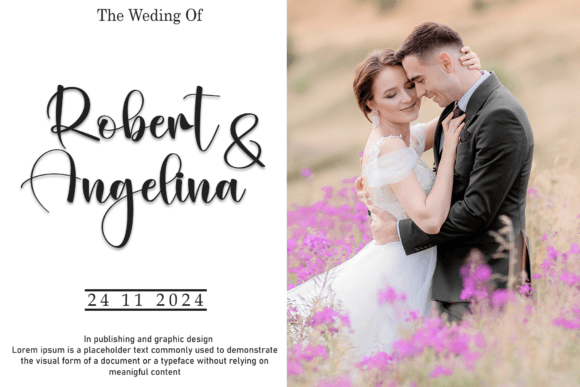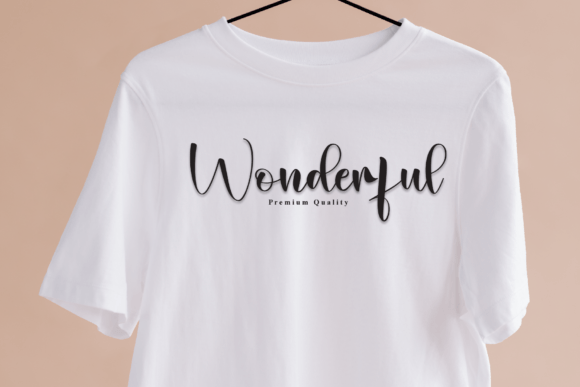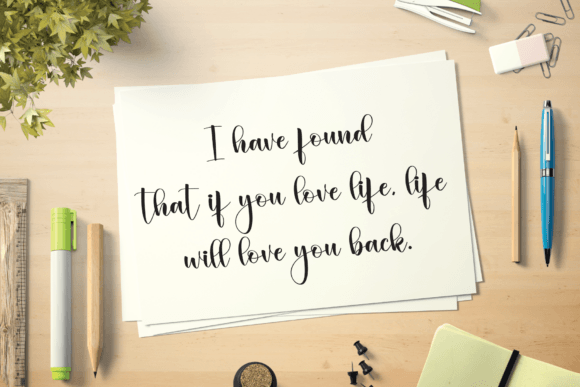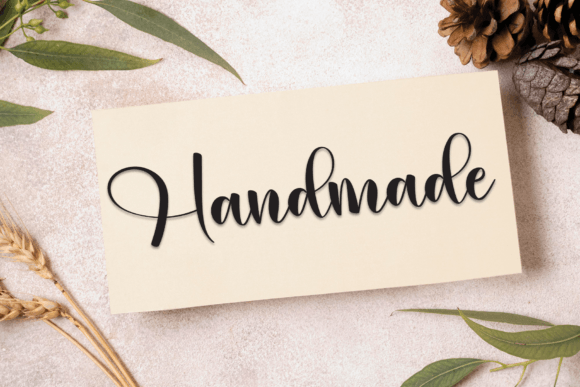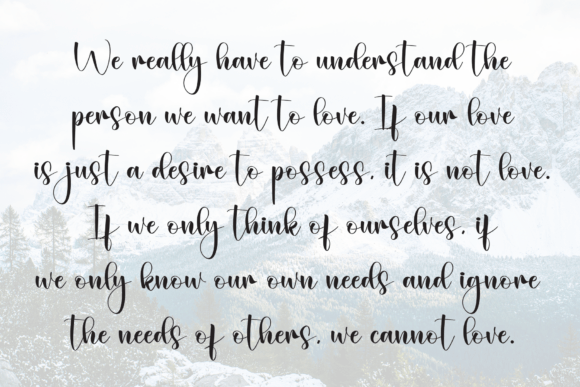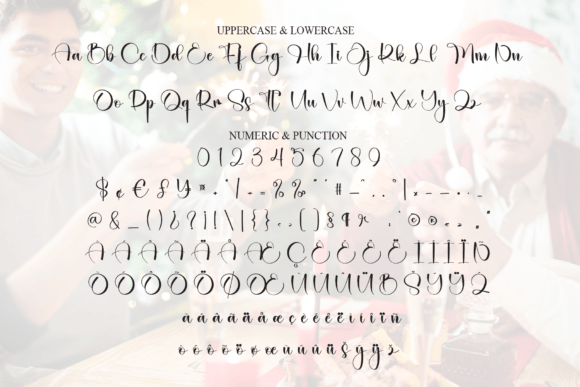
Introduction to Festival Christmas Font
It’s the most wonderful time of the year – a season of joy, love, and creativity. As a designer, there’s nothing quite like the thrill of bringing a new project to life, and the holiday season is the perfect time to get creative. Imagine yourself surrounded by twinkling lights, festive decorations, and the warmth of loved ones – the perfect setting to spark your imagination and get inspired.
For designers, the right font can make all the difference in bringing a project to life. That’s why we’re excited to introduce you to the Festival Christmas Font, a beautiful and festive script font that’s perfect for adding a touch of magic to your holiday designs. With its elegant, flowing letters and hand-drawn style, this font is a design resource that’s sure to elevate your creative project and make it stand out from the crowd.
Festival Christmas Font
- High-quality design resource ideal for creative projects and holiday-themed graphics.
- Transparent background, allowing for easy customization and versatility.
- Includes a range of festive and seasonal characters, making it perfect for Christmas and winter-themed designs.
- Perfect for use in digital and print media, including social media graphics, posters, and greeting cards.
Honest Review: Festival Christmas Font
- ✨ High quality: The font is well-designed and crisp, making it perfect for print and digital designs.
- ✨ Transparent background: This feature allows designers to easily overlay the font on top of images or other designs.
- ✨ Versatile: The font can be used for a variety of creative projects, from greeting cards to social media posts.
- ⚠️ Limited font styles: The font only comes in a few different styles, which may limit its use in certain design projects.
- ⚠️ Not suitable for complex designs: The font is best suited for simple designs and may not be the best choice for complex, multi-layered projects.
Overall, I’m impressed with the Festival Christmas Font. It’s a great resource for designers who need a high-quality, easy-to-use font for their creative projects.
For the best results, use the font in conjunction with other festive design elements, such as holly or snowflakes. Experiment with different font sizes and colors to create a unique look. The font also works well with other design resources, such as graphics and vectors.
The Festival Christmas Font is perfect for any holiday-themed project, including Christmas cards, gift tags, and social media graphics. It’s also great for creating custom invitations, posters, and flyers.